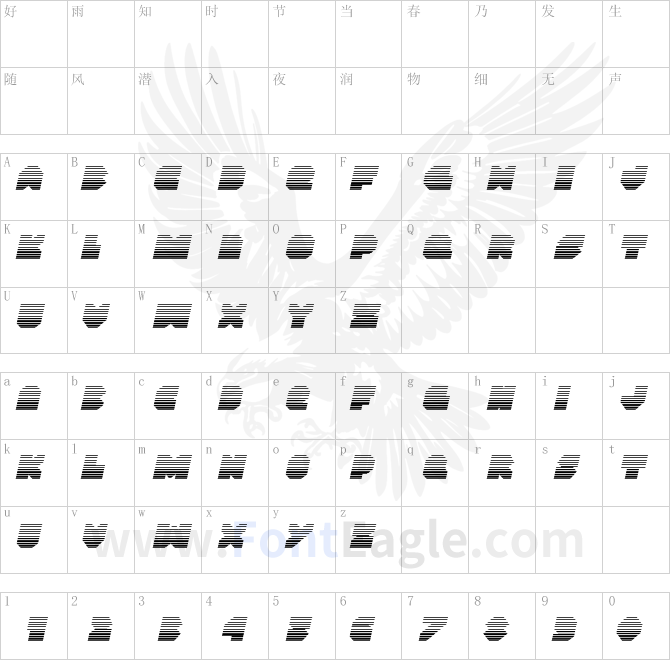
VX-Rocket-Gradient-Italic-copy-2- is a great font, widely used in graphic design, single-page menu design, poster design and other fields, and is deeply loved by designers.VX-Rocket-Gradient-Italic-copy-2- download.